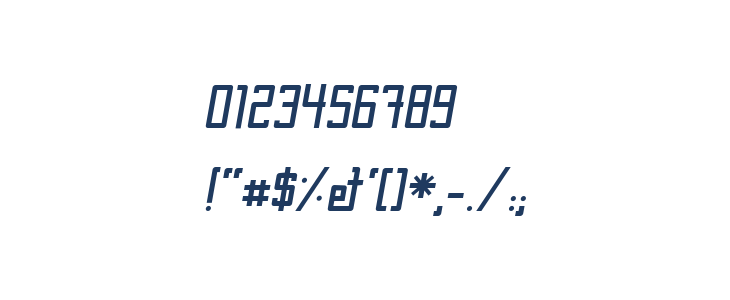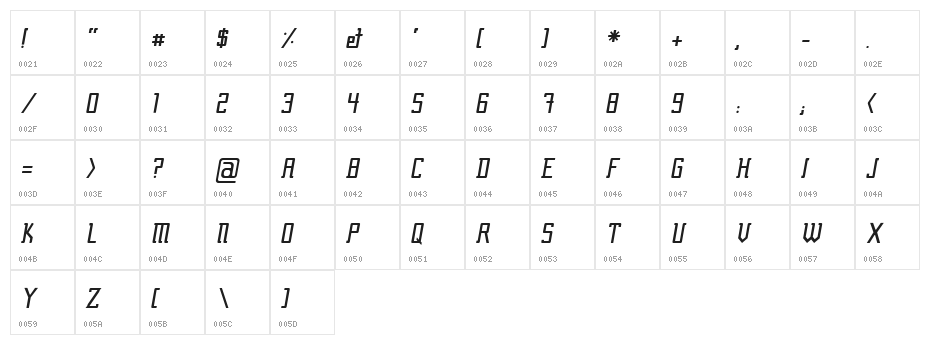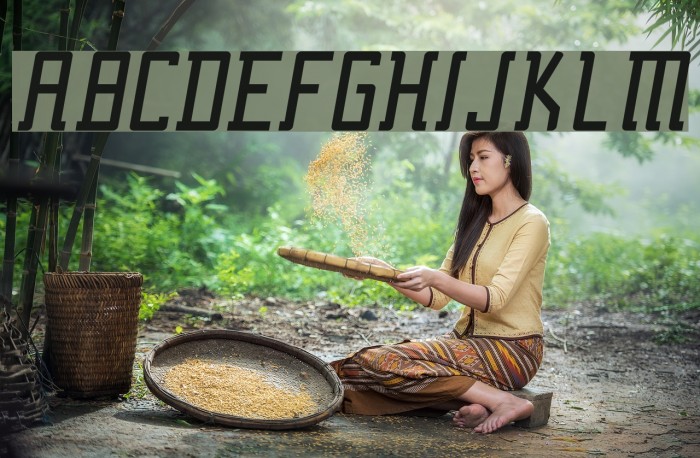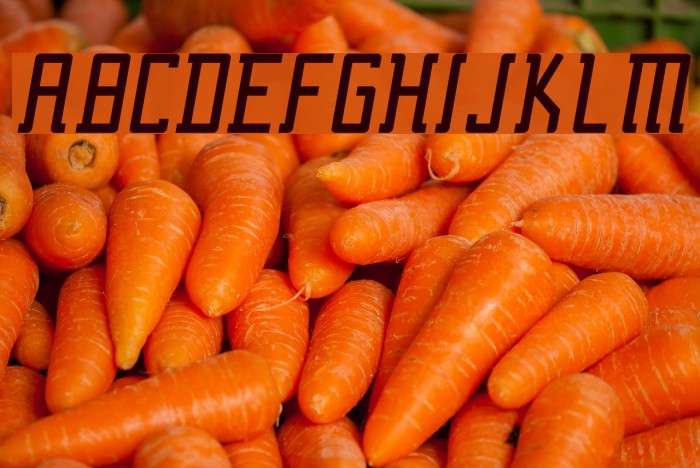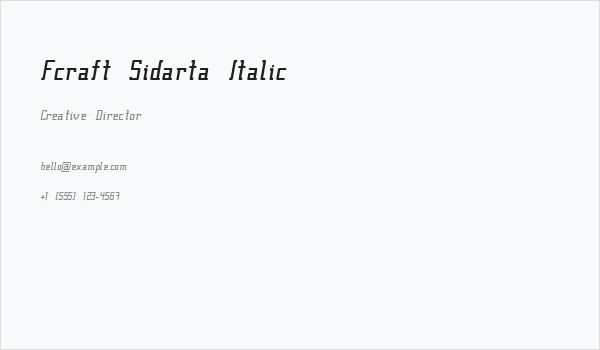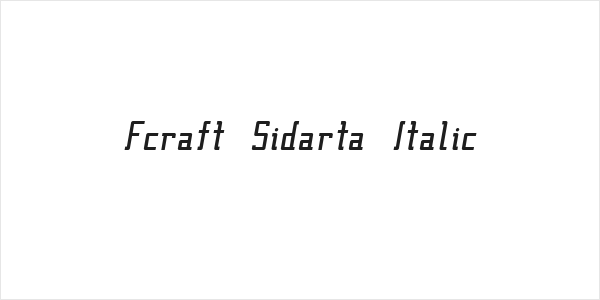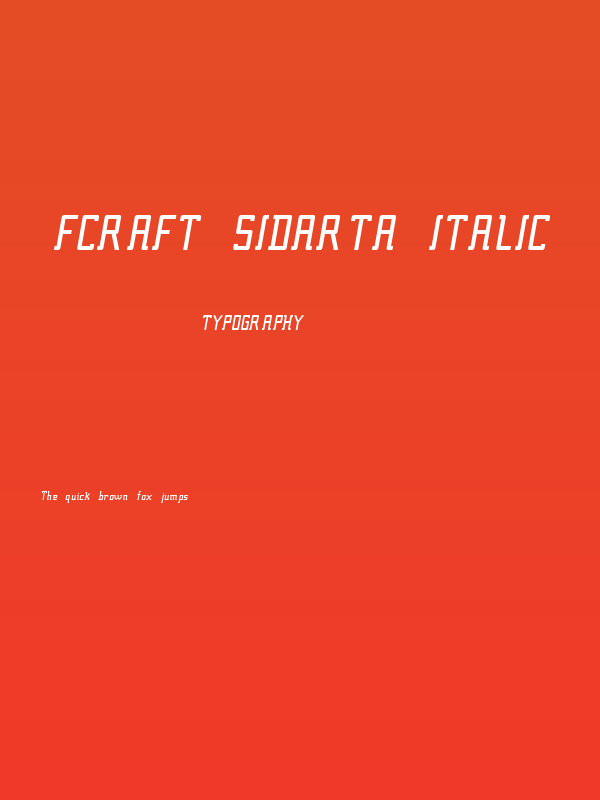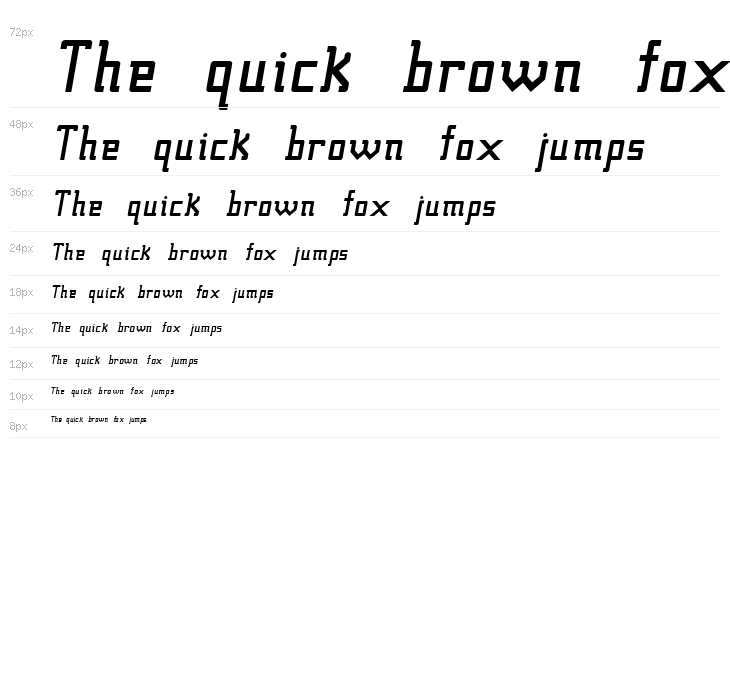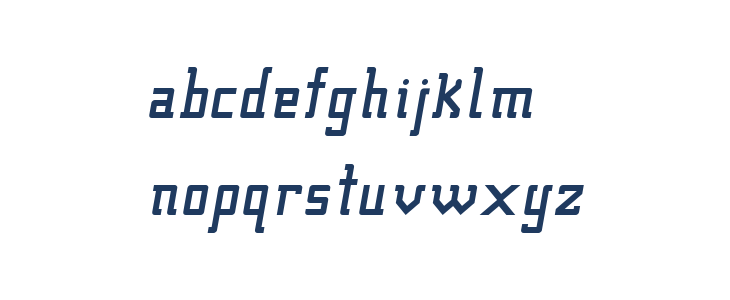
Fcraft Sidarta Italic Font
Fcraft Sidarta Italic Description
This font features a bold, italicized style with a modern and slightly futuristic appearance. The characters are angular and geometric, with a consistent slant that gives a sense of motion and dynamism. The uppercase letters are tall and narrow, while the lowercase letters maintain a similar width, creating a cohesive look. The numbers and special characters follow the same design principles, ensuring uniformity across all glyphs. The font's design is clean and legible, making it suitable for various applications where a contemporary and eye-catching typeface is desired.